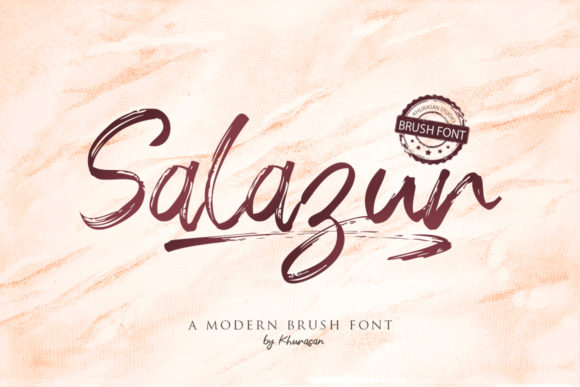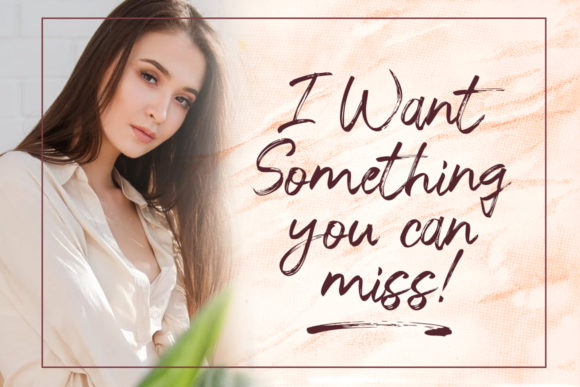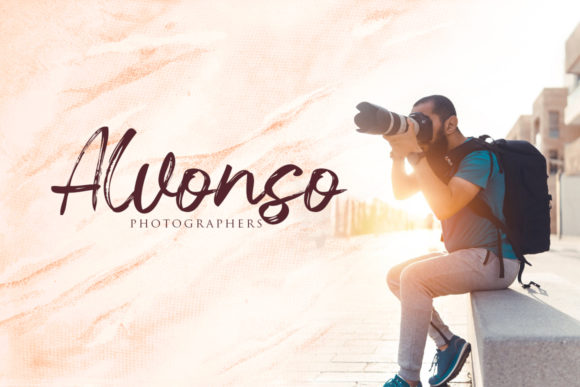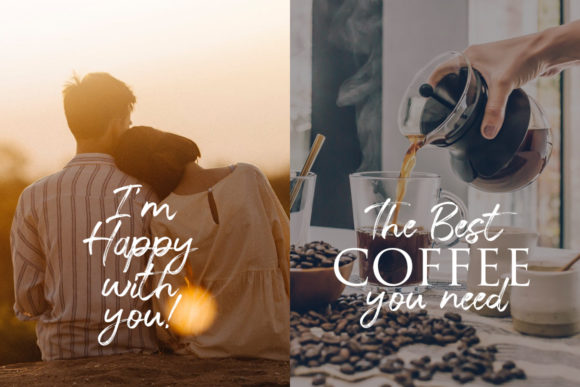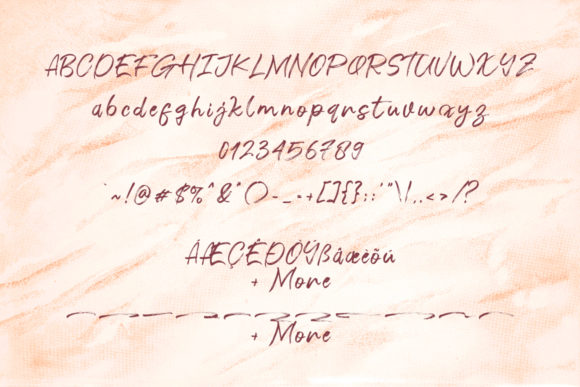
Salazur Font
About Salazur Font
Salazur is a fresh handwritten brush font with an elegant feel. Whether you’re looking for fonts for Instagram or calligraphy scripts for DIY projects, Salazur will turn any creative idea into a true piece of art!